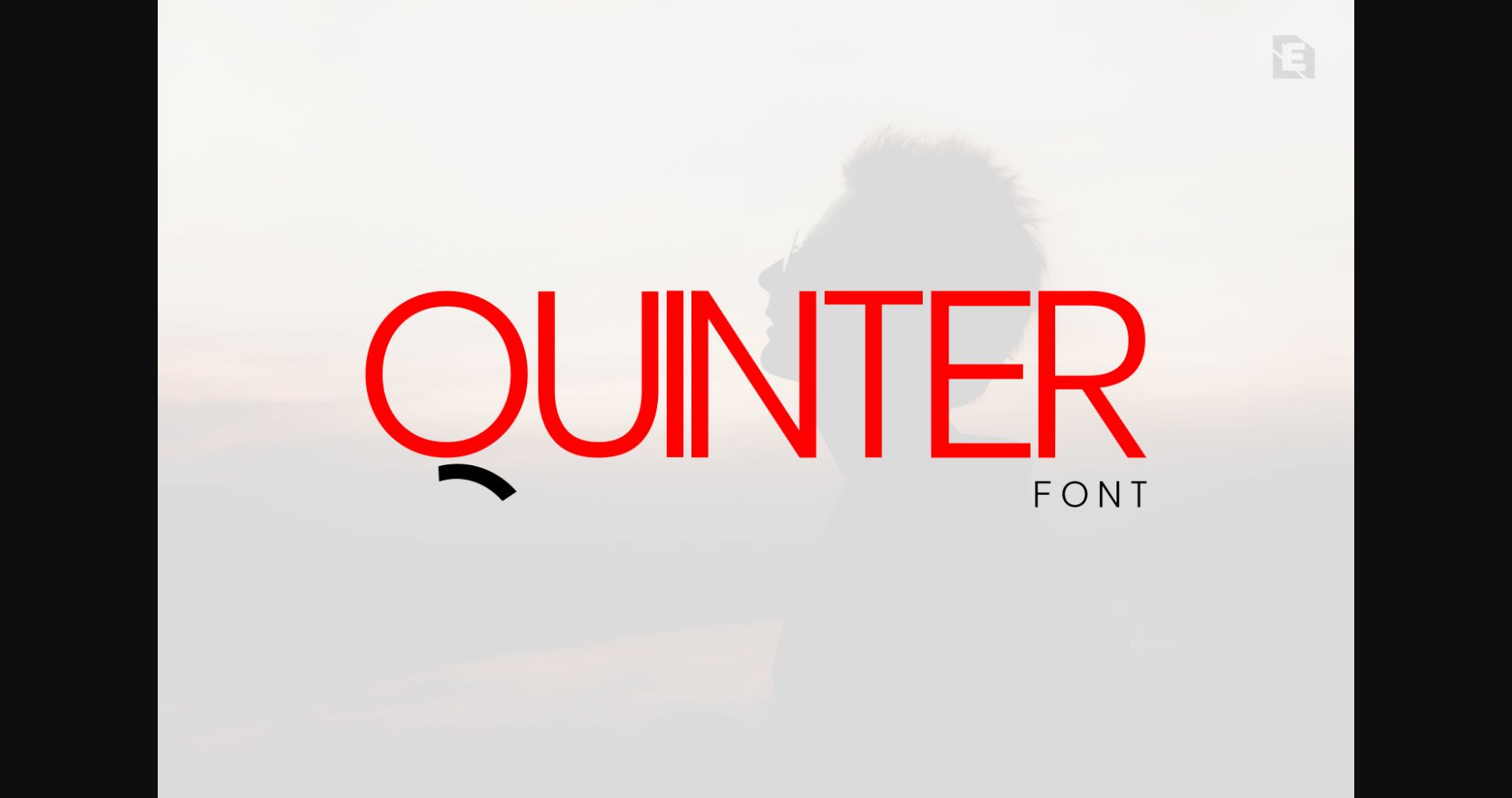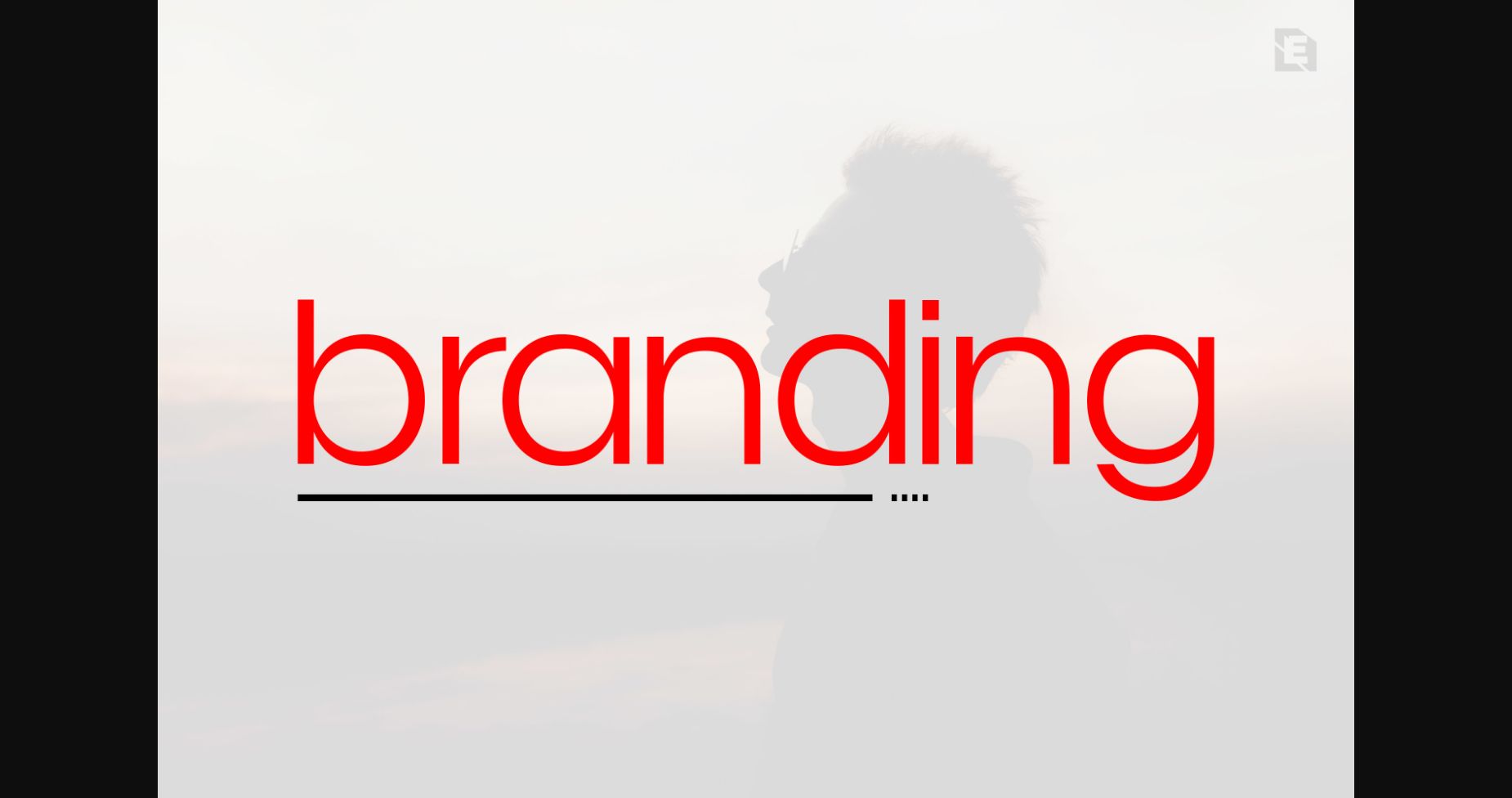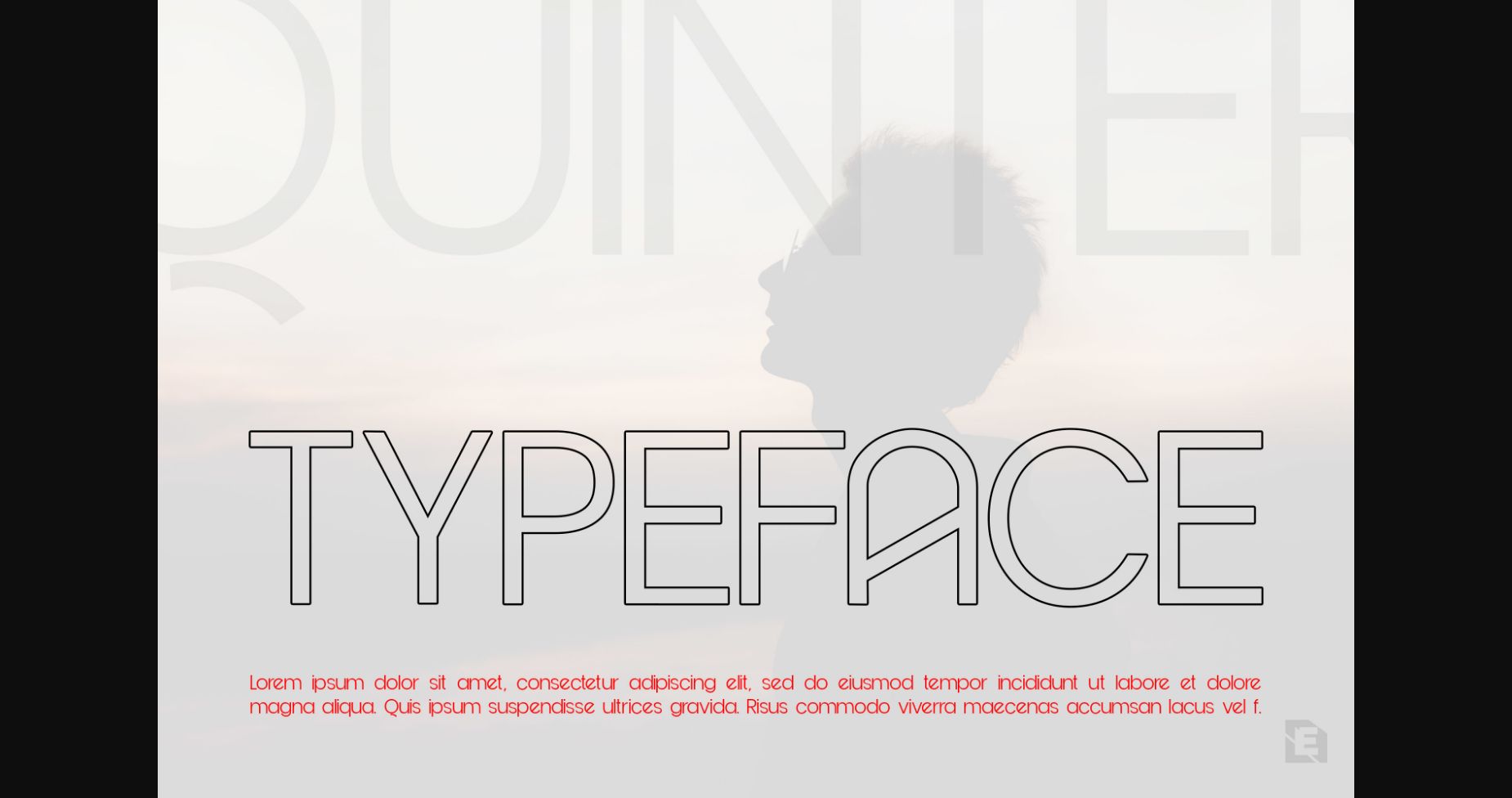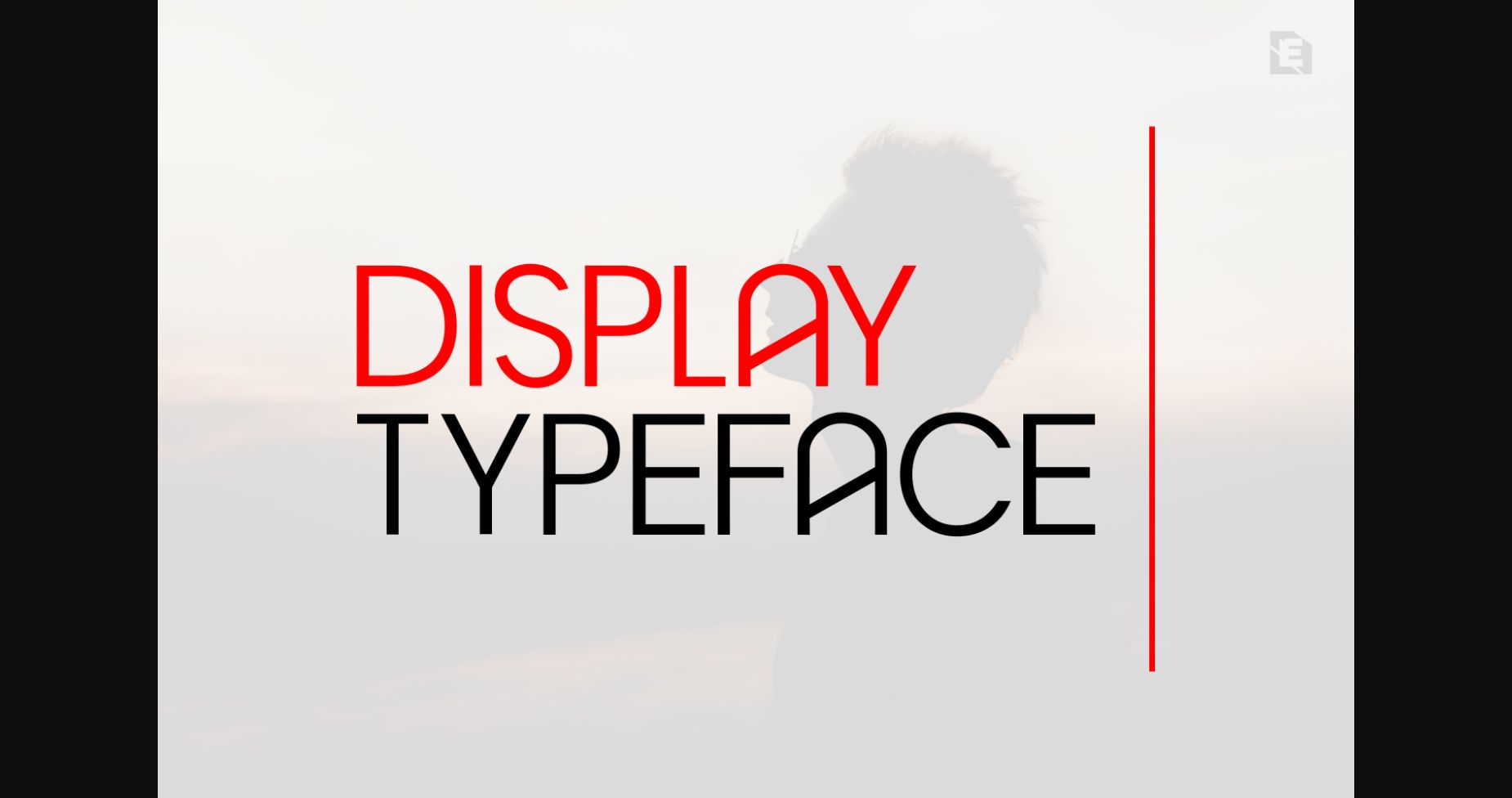
HomeSans Serif FontsQuinter Font Sans Serif Fonts Quinter Font FacebookXPinterestWhatsApp 1 of 6 ... Quinter Font Poster 2... Quinter Font Poster 3... Quinter Font Poster 4... Quinter Font Poster 5... Quinter Font Poster 6... About Quinter Font Quinter is a minimal and neat sans serif font. It can easily be matched to an incredibly large set of projects, so add it to your creative ideas and notice how it makes them stand out! DOWNLOAD NOW People also explored Blue Rose Script Font Millenium Font Ghina Font Shirley Font Ducking Font Telor Font JJ Stencil Bunk Bed Font Chalkabout Font 383 0 TagsQuinterQuinter Font Previous articleNordique FontNext articleChateau Font LEAVE A REPLY Cancel reply Comment: Please enter your comment! Name:* Please enter your name here Email:* You have entered an incorrect email address! Please enter your email address here Website: Save my name, email, and website in this browser for the next time I comment. Personal Use Free Happy Camping Personal Use Free Read more about this font Roustel Personal Use Free Read more about this font Hysteria Santa Personal Use Free Read more about this font Calega Personal Use Free Read more about this font BLOG Using Fonts in Digital Marketing: Tips to Strengthen Your Brand Identity In the realm of digital marketing, every visual element plays a crucial role in shaping a brand's identity, and fonts are no exception. The... Best Fonts for T-Shirt Design – Top 2025 Picks Fonts That Capture the Spirit of New York City How to Cut Any Font on Cricut: Convert a Font to SVG (Free)